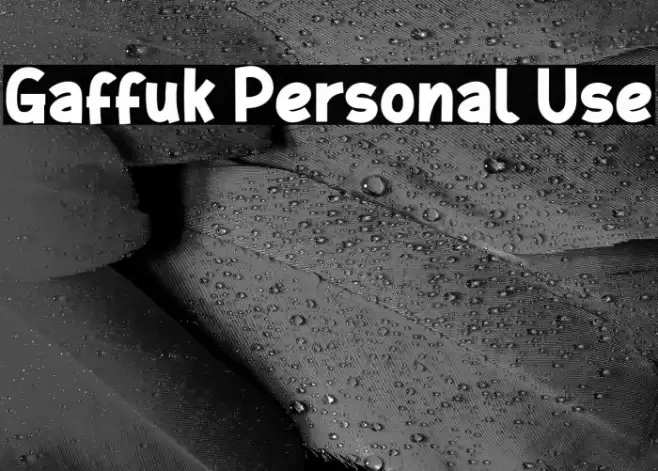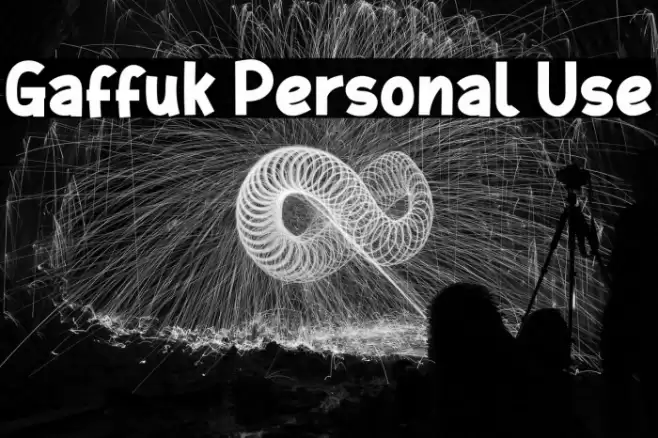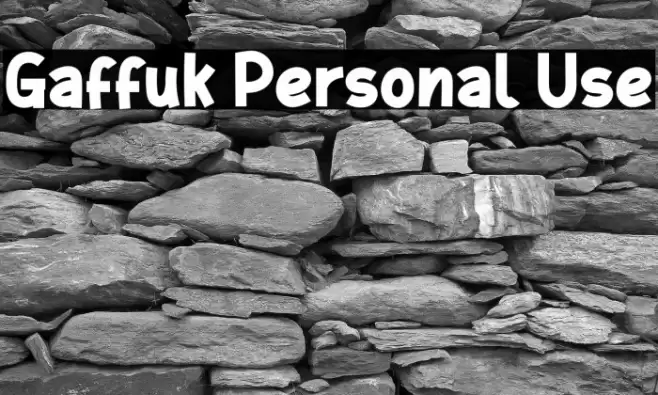
Gaffuk Personal Use Font
Gaffuk Personal Use Description
This font features bold, playful characters with a slightly irregular and hand-drawn appearance. The uppercase letters are robust and have a strong presence, while the lowercase letters maintain a consistent style with rounded edges and a friendly demeanor. The numbers are equally bold, matching the overall aesthetic of the alphabet. The font's style is reminiscent of a casual, handwritten script, making it approachable and engaging. It is suitable for projects that require a touch of personality and warmth. The characters are well-spaced, ensuring readability while maintaining a cohesive look.
A bold, playful font with a hand-drawn, casual style from Cartoon fonts.
- Proposed Projects: Ideal for children's books, playful branding, casual invitations, and creative posters.
- Overall Style: Playful, Casual